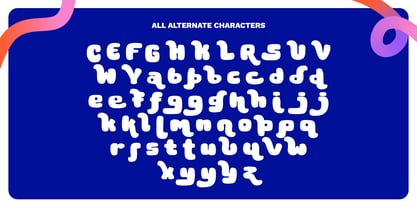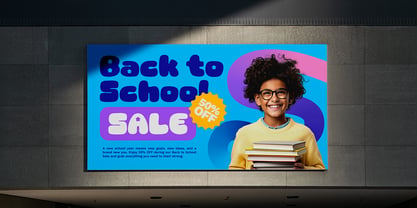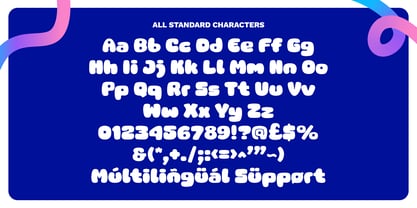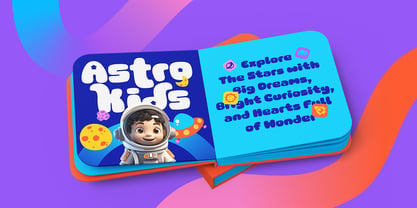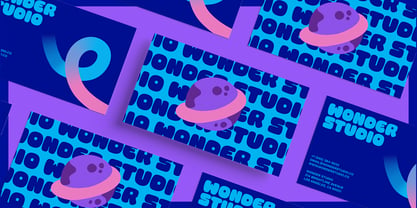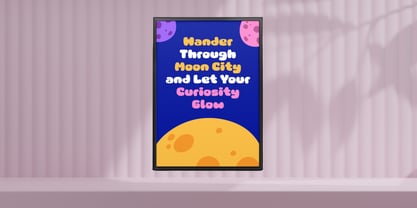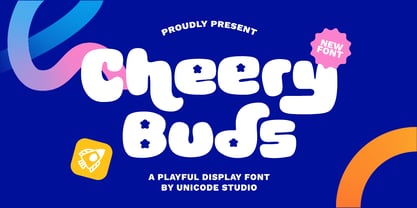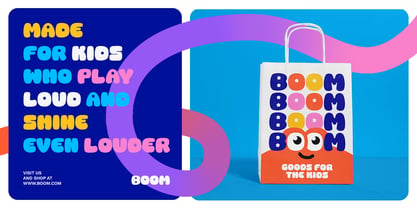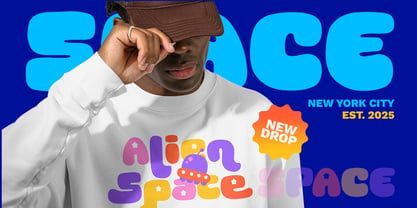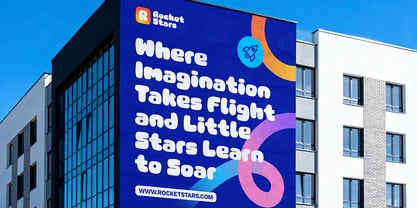
Cheery Buds
The Cheery Buds Font Family was designed by BOYHAQI . and published by Unicode Studio. Cheery Buds contains 1 styles. More about this family
Cheery Buds is a cute and playful bubble display font created to bring fun, joy, and friendliness into your designs. With its soft, rounded shapes and bold bubbly letters, this font is perfect for kids' projects, playful branding, and cheerful visuals. This typeface works great for logos, toy packaging, children’s books, stickers, posters, social media posts, cartoons, YouTube thumbnails, party designs, and fun merchandise. Its cartoon-style look makes it ideal for projects that need a bright, youthful, and happy vibe. Cheery Buds is designed to be eye-catching and easy to read, making it perfect for both digital and print designs. Whether you're creating kids' branding, fun product labels, or playful marketing materials, this font will add charm and personality to your work.